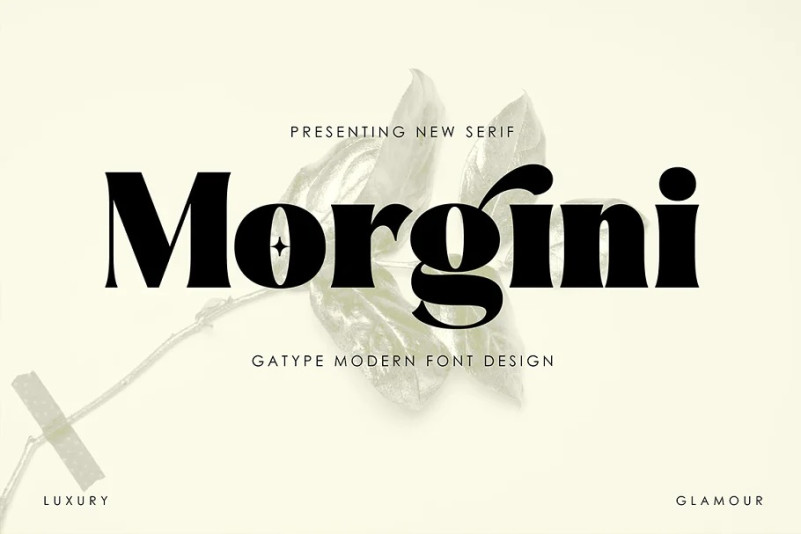
Morgini Font
Introducing new Morgini Serif Typefaces with lots of alternative characters, SWASH and unique ligatures. It appears regularly and boldly with lower and uppercase letters, numbers, punctuation marks plus multilingual letters. A must have for every modern graphic designer now!
Morgini is a very versatile font. Perfect for branding projects, logos, magazine imagery, wedding invitations, posters, apparel, packaging, website headers, or simply as a stylish text overlay onto any background image.